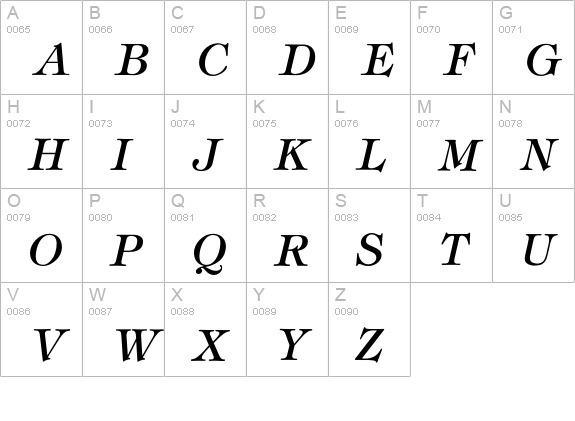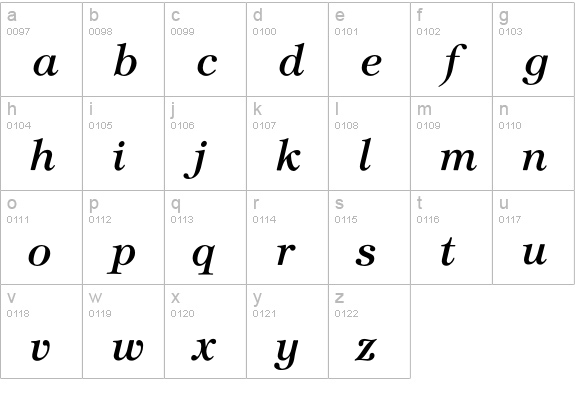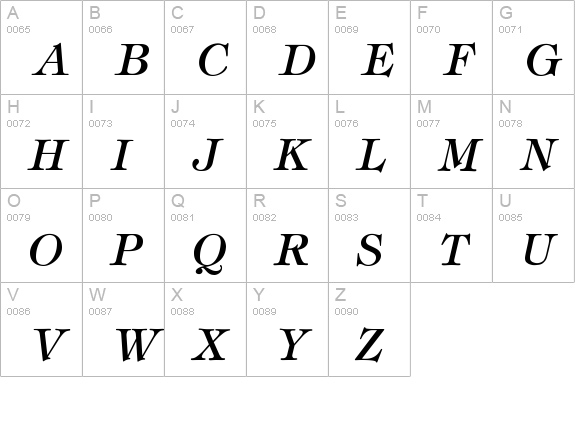
TiffanyMediumItalic Font Details
TiffanyMediumItalic font is a stunning and versatile typeface that exudes elegance and sophistication. Its slim and graceful letterforms are perfectly balanced, making it ideal for a wide range of design projects. The medium weight of the font gives it a modern and contemporary feel, while the italic style adds a touch of drama and flair. One of the best things about TiffanyMediumItalic font is that it is available for free. You can easily download it from FontsMarket.com, a trusted source for high-quality fonts. This means that you can use this beautiful typeface in your personal and commercial projects without any cost or hassle. Whether you're designing a wedding invitation, a logo, a poster, or a website, TiffanyMediumItalic font will make your text stand out and leave a lasting impression. Its effortless elegance and timeless appeal make it a go-to choice for designers who want to add a touch of sophistication to their creations. With its clean and legible letterforms, TiffanyMediumItalic font is easy to read even at small sizes, making it perfect for both print and digital applications. Its versatility and timeless beauty make it a must-have font for any designer's collection. So why wait? Download TiffanyMediumItalic font for free today at FontsMarket.com and elevate your designs with its exquisite charm and style.